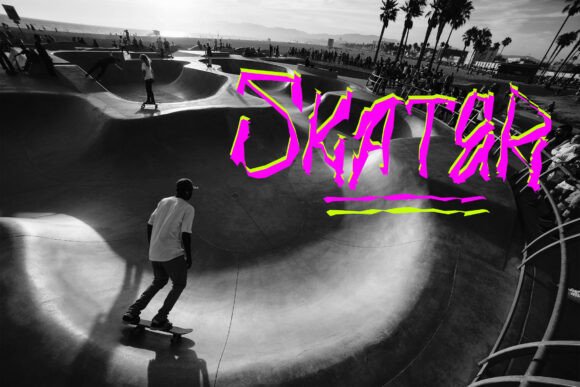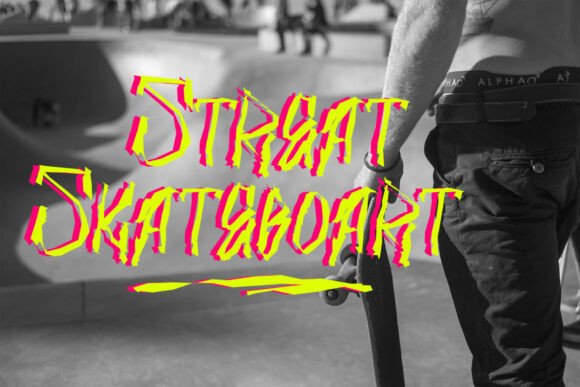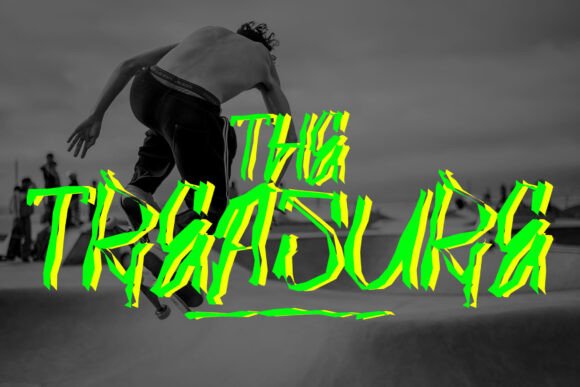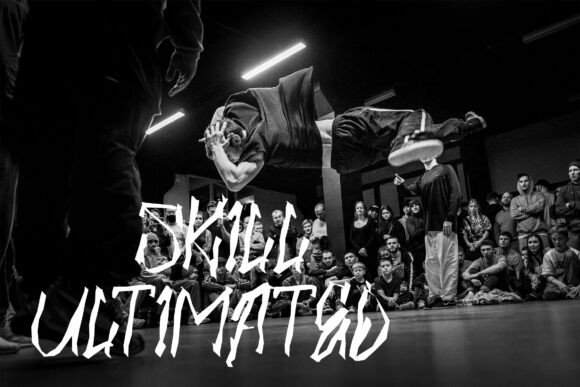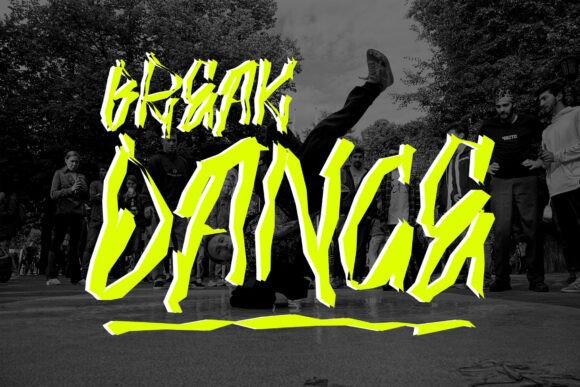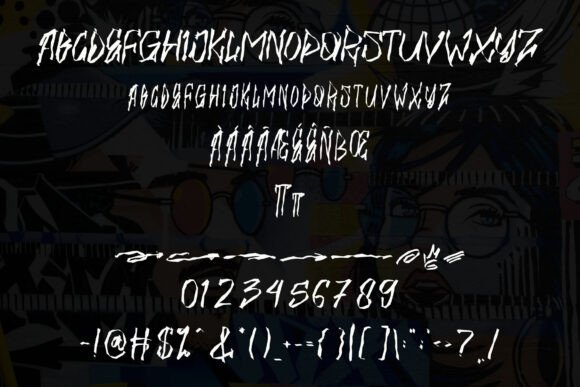
Introduction to Sinker Font Font
Fonts play a crucial role in design, and the Sinker Font font is a typeface that brings both character and versatility to any project. Whether you’re working on a branding project, a website, or a print design, the Sinker Font font offers a unique style that can elevate your work.
SINKER is a rough hand brush-style display font designed with unique character shapes to elevate any graphic design.
Its raw and bold look makes it perfect for logos, posters, branding, and other creative projects .
Key Features of Sinker Font Font
Why Choose Sinker Font Font?
The Sinker Font font is more than just a typeface – it’s a design tool that helps you communicate your message with style and clarity. Its unique character set and versatile design make it suitable for a wide range of applications, from elegant invitations to bold headlines.
With its carefully crafted letterforms and balanced proportions, the Sinker Font font ensures readability and visual appeal across all mediums.
What makes Sinker Font font special?
The Sinker Font font stands out with its unique design, exceptional readability, and versatility across various design applications.